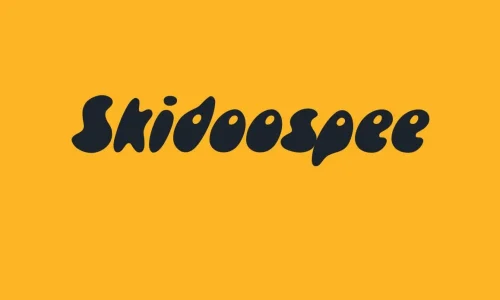
Holy Ravioli Font is a fancy font that was created by Nick’s Fonts. It is available in TTF and OTF formats. This font has only solo weight and it also includes 400 unique glyphs.
| Name | Holy Ravioli Font |
| Designer | Nick’s Fonts |